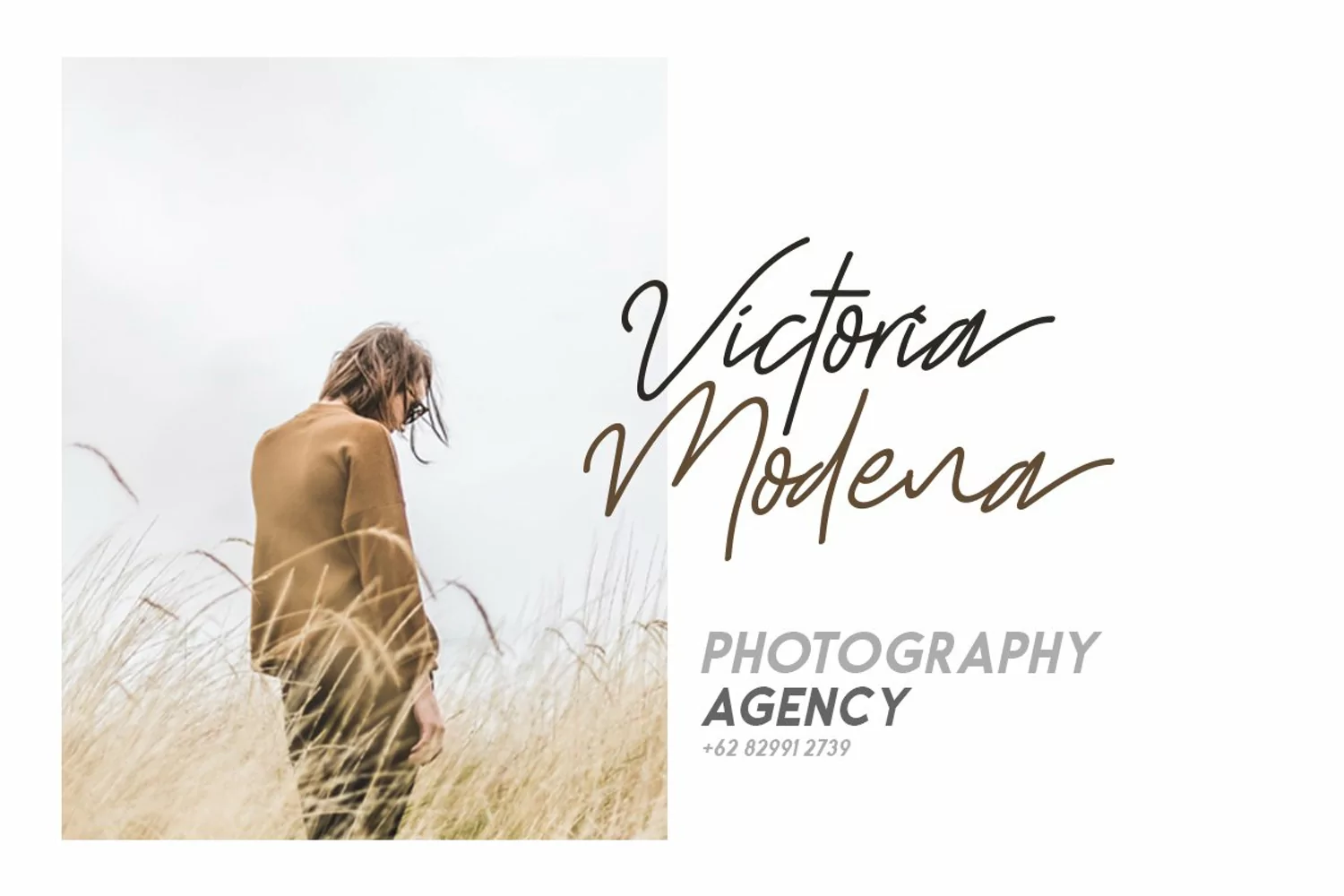
Big Reputation - Font Duo
This font duo contain my two best selling font. Carrol and Shutter Stone. I choose best two from all style in those font family, and combined it for become font duo. You can make your own signature logo, quotes, or whatever with this two totally different typeface. Both font also support multilingual, any symbol and already PUA Encoded.